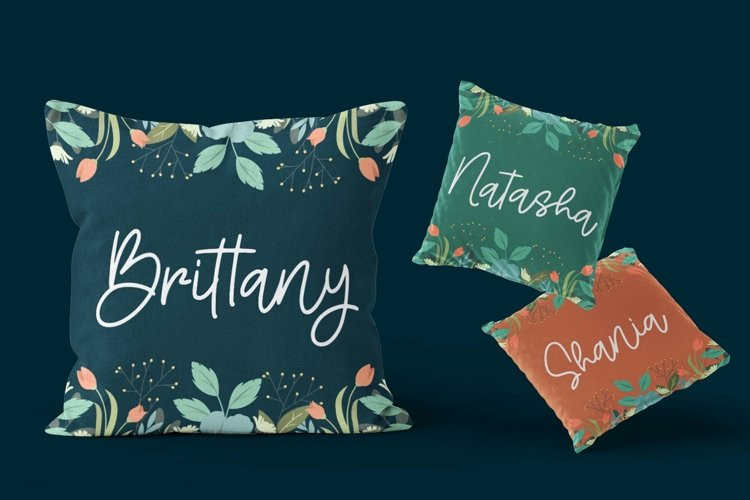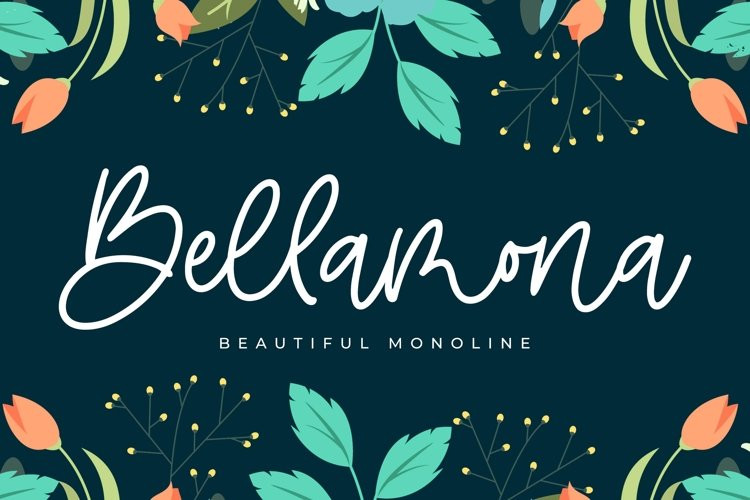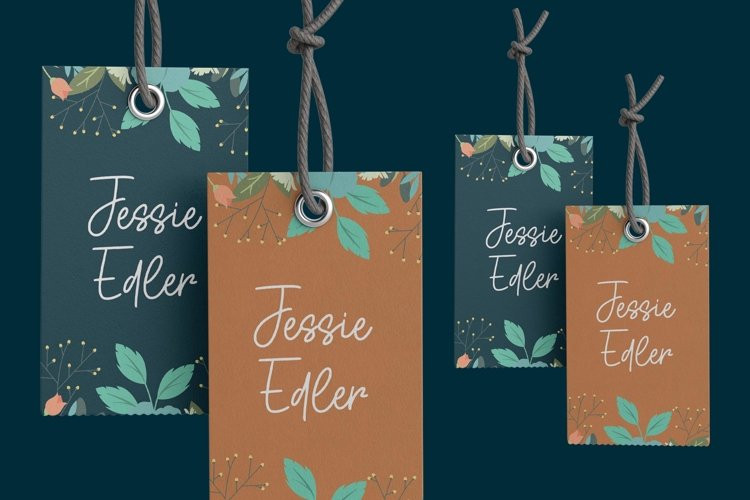
Bellamona Font
Bellamona FontBellamona is Beautiful Monoline font with a natural handwritten feel. perfect for any creative design. This handmade font will make your design has a beautiful natural touch for each details. It is perfect for any design project as Invitation,logo, book cover, craft or any design purposes.
This font is PUA encoded which means you can access all of the magical glyphs and swashes with ease! It also features a wealth of special features including alternate glyphs and ligatures.